I would like to use the nice fonts (text + math) of the following document (from the Encyclopedia of Mathematical Physics). I tried WhatTheFont but without a convenient result. page
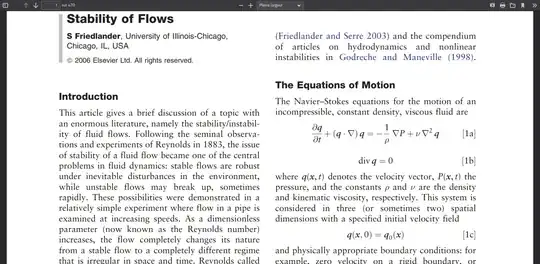
I used pdffonts command and I get a huge list of embedded fonts (strange ones as OAAALF+AdvP4E79...) and some recognizable ones (Helvetica, Sabon-Italic, CASLONOPENFACE-Thin). I ddin't get the used mathematical fonts. the nice answers given here How do I find out what fonts are used in a document/picture? do not cover math fonts!
Well, the sans-serif font is Helvetica obviously. The serif font used for the text is Sabon and for the math part, I would say, they used Sabon where possible and some other fonts for the glyphs that are not included in the font, such as the Greek letters. The small nu actually looks a lot like Computer Modern. – Jasper Habicht Aug 05 '22 at 22:10
All the Greek (including the partial) looks like Computer Modern. If you can find an italic text passage, compare the letters to the math; if they match, you've got your answer. Similarly with digits. – barbara beeton Aug 06 '22 at 20:37